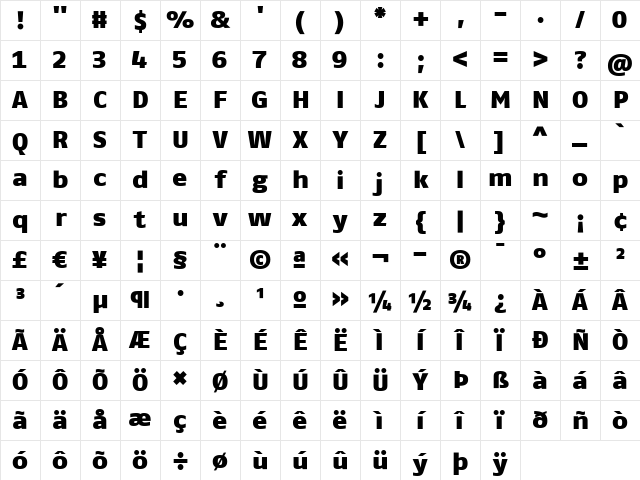
FagoExTf Heavy
Foundry: Ole Schaefer, . Published by FontShop International for FontFont Release Fago Extended is a trademark of FSI Fonts and Software GmbH
Design Context for FagoExTf
FagoExTf is a composed and adaptable typeface that performs quietly and consistently across a wide range of design contexts.